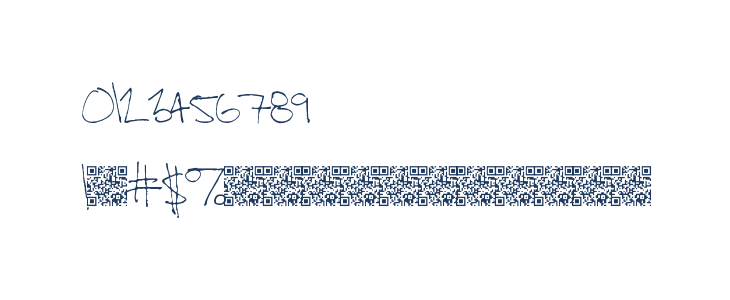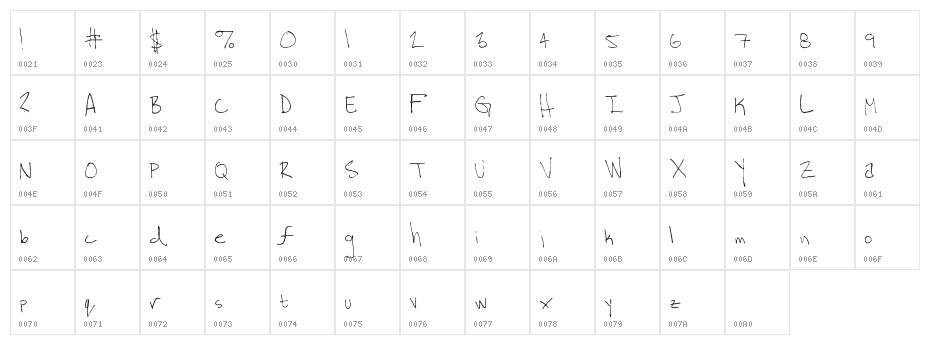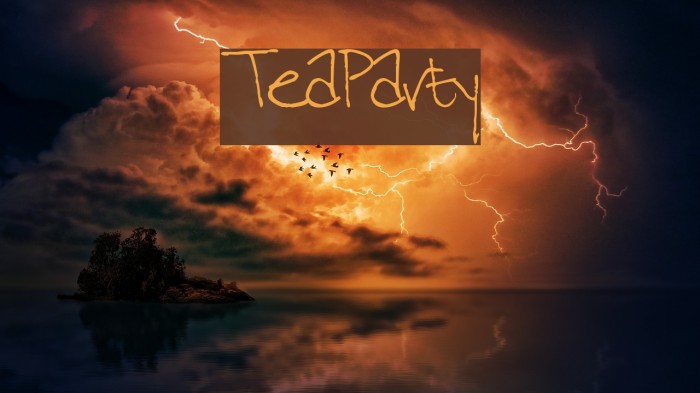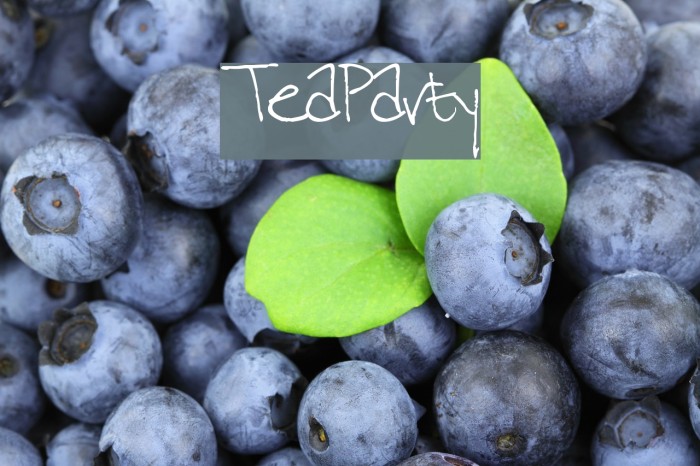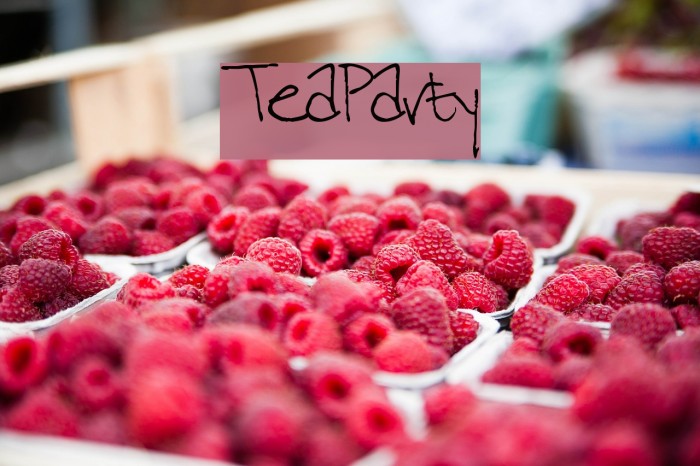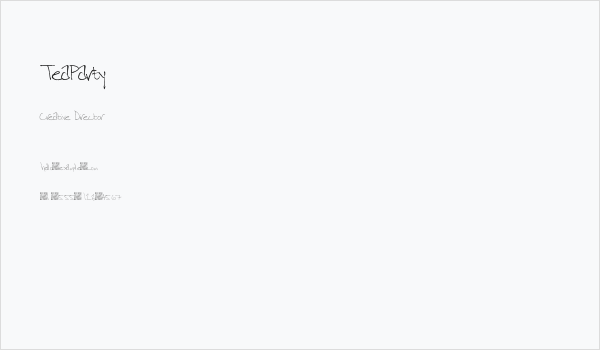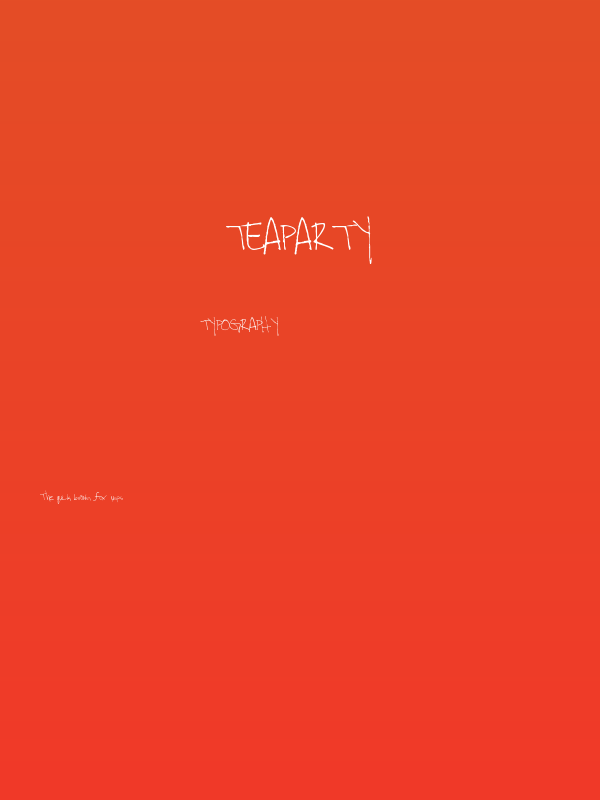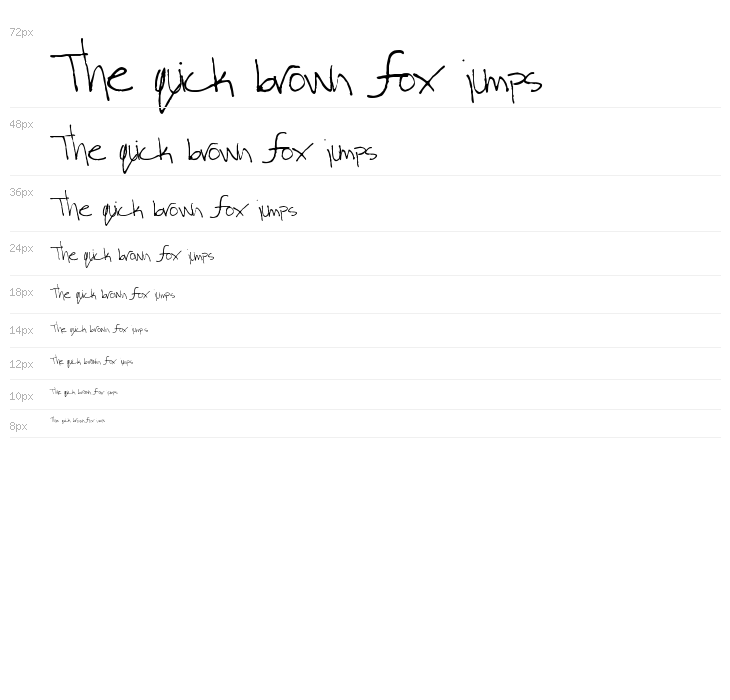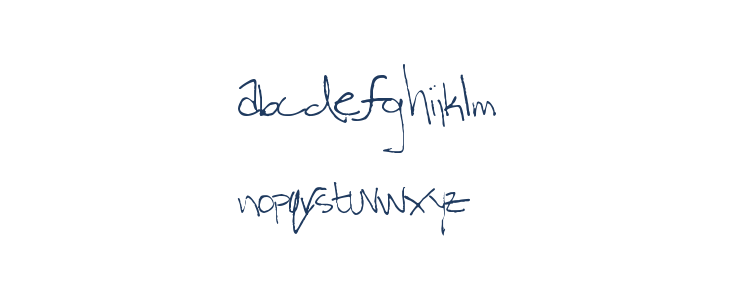
TeaParty Font
| Gesamtstil | Casual, Artistic |
| Anwendungsfall | Headlines, Creative projects, Informal communications |
| Vorgeschlagene Projekte | Ideal for greeting cards, personal blogs, creative invitations, and artistic posters. |